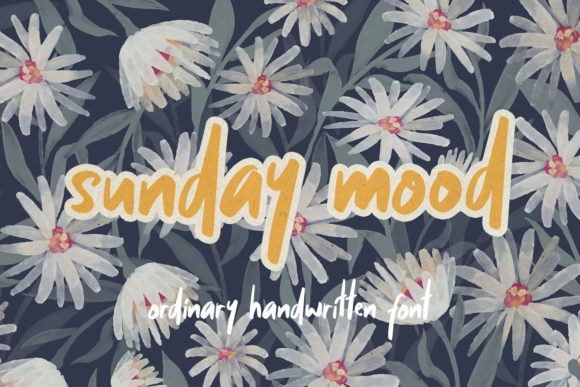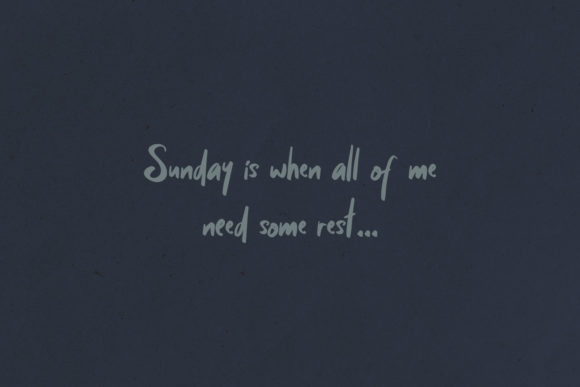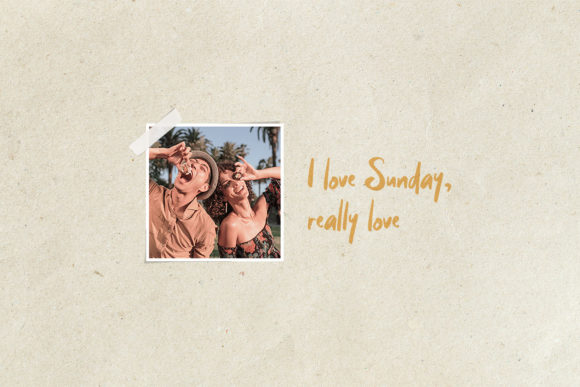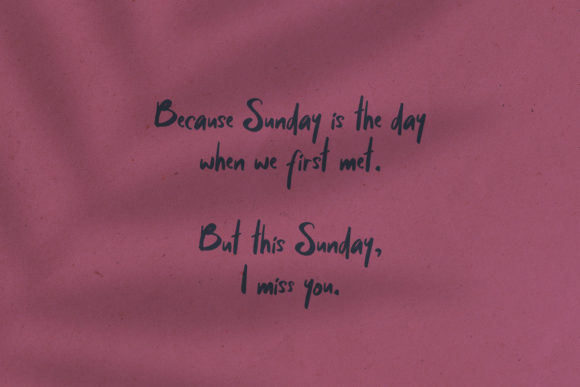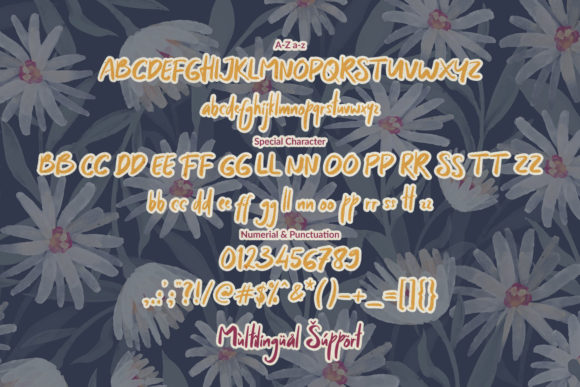
Sunday Mood Font
About Sunday Mood Font
Sunday Mood is a casual and sweet handwritten font, with a natural stroke style. Whether you’re looking for fonts for Instagram or calligraphy scripts for DIY projects, this font will turn any creative idea into a true piece of art!